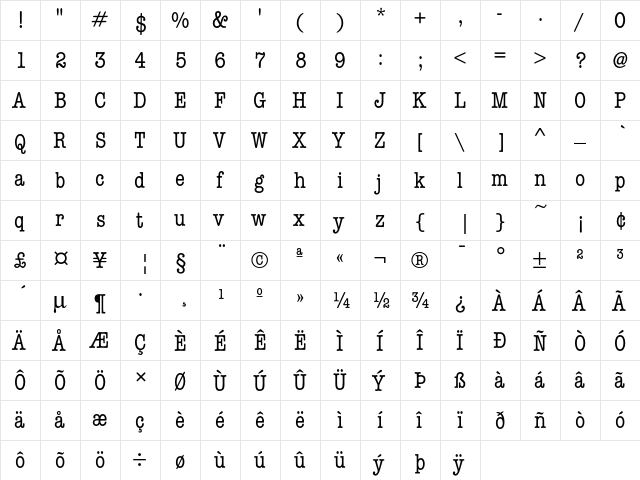
AmTypewriterEF MedCond
Design Context for AmTypewriterEF Typeface
AmTypewriterEF brings the precise, column-aligned rhythm of monospaced typography to designs that value technical clarity and systematic order.
A natural fit for code editors, technical documentation, developer-focused branding, and terminal-inspired UI.